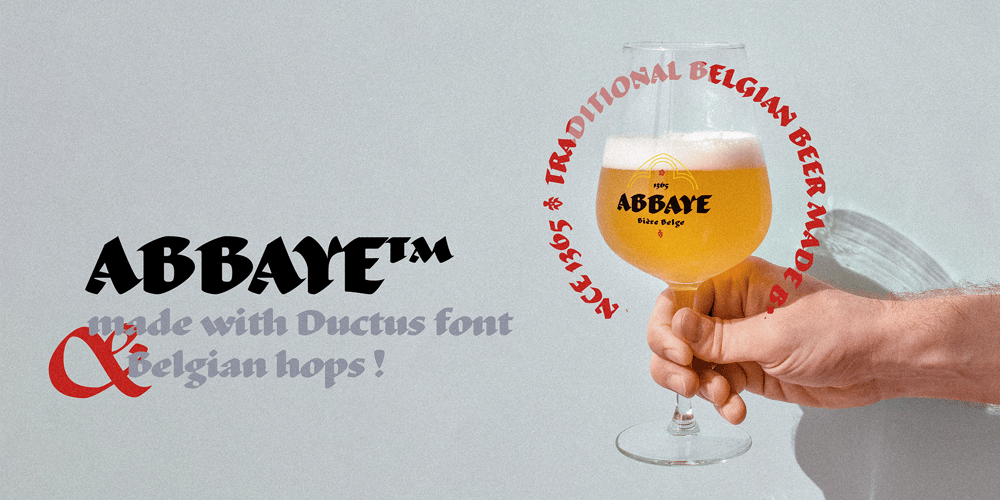
Ductus
Ductus font
Ductus Font Family was designed by published by Thomas Jockin. Ductus contains 5 styles and family package options. Ductus is a five weight typeface that is both ancient and contemporary. Drawing on various sources such as rustic capitals, Naskh arabic calligraphy, and black-letter, Ductus is a reflection on how the broad-nib pen can be relevant for today’s designer.